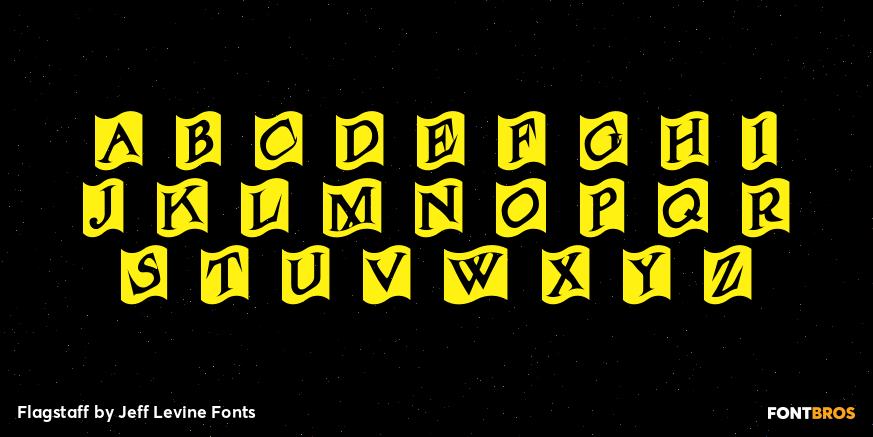
Flagstaff
Flagstaff JNL takes the lettering from Roma Initial Caps JNL and gives them the movement of an unfurled banner.
For added effect, there are flagpoles facing in either direction on the lesser and greater keys. Left and right flag ends are placed on the parenthesis keys; a wide blank flag panel is on the left brace key and a narrow blank flag panel is on the right brace key. Letters only; no punctuation or extended characters.